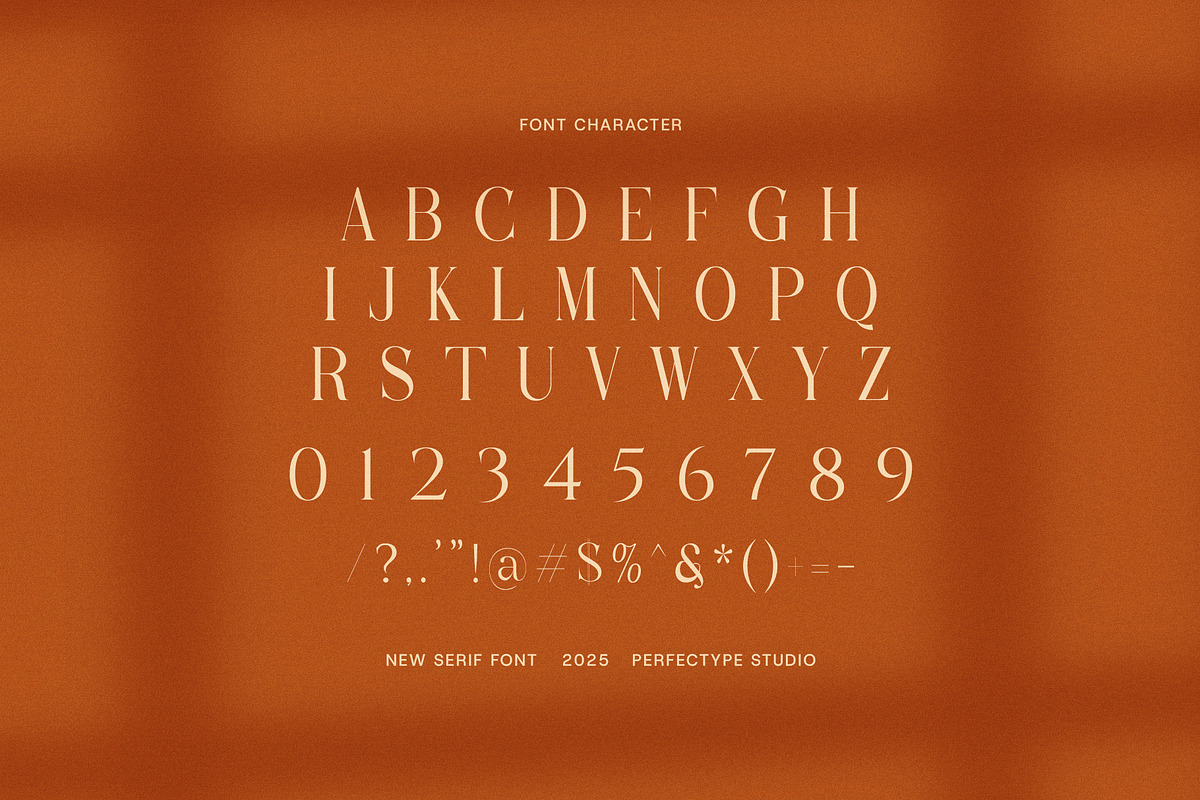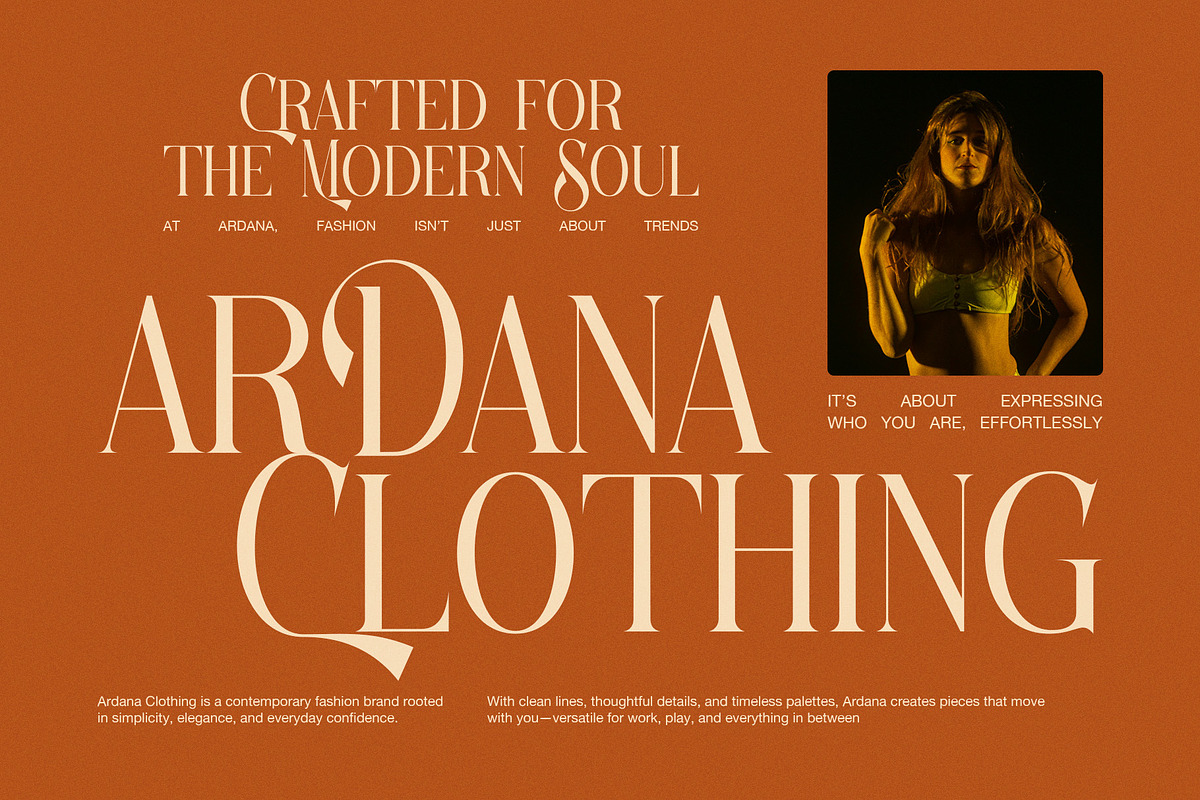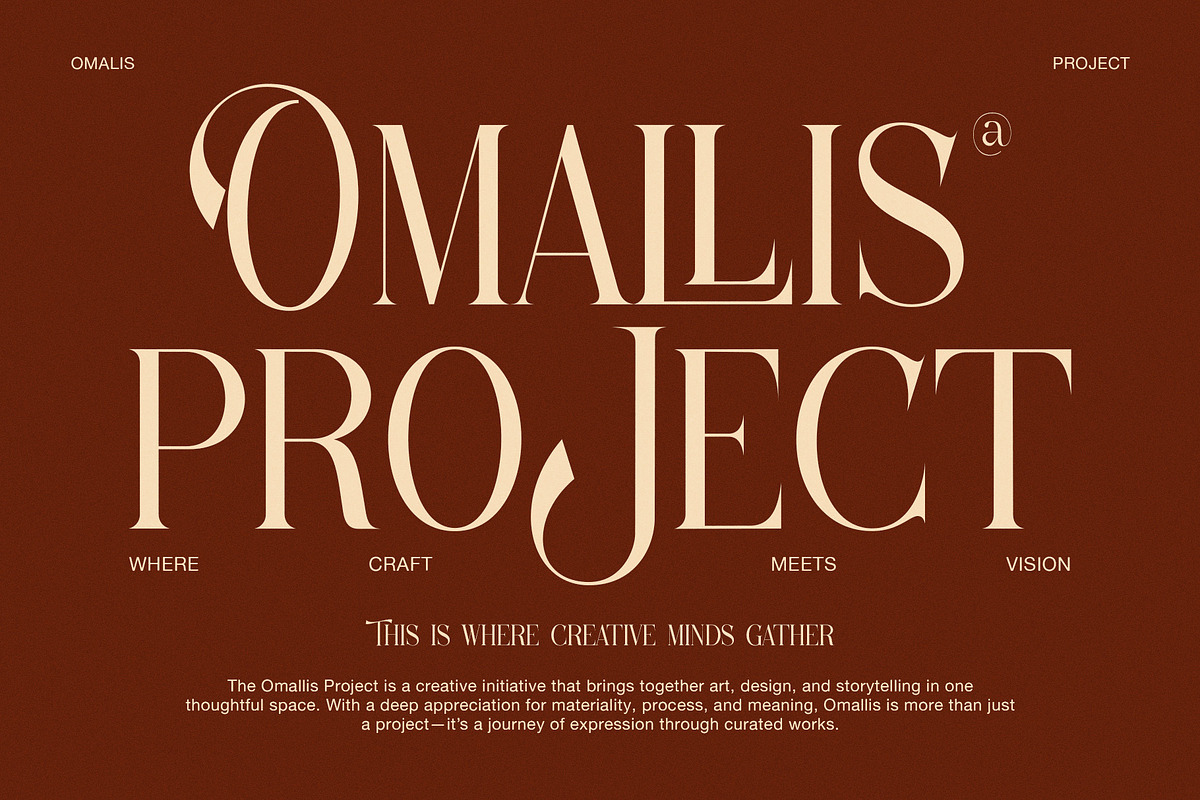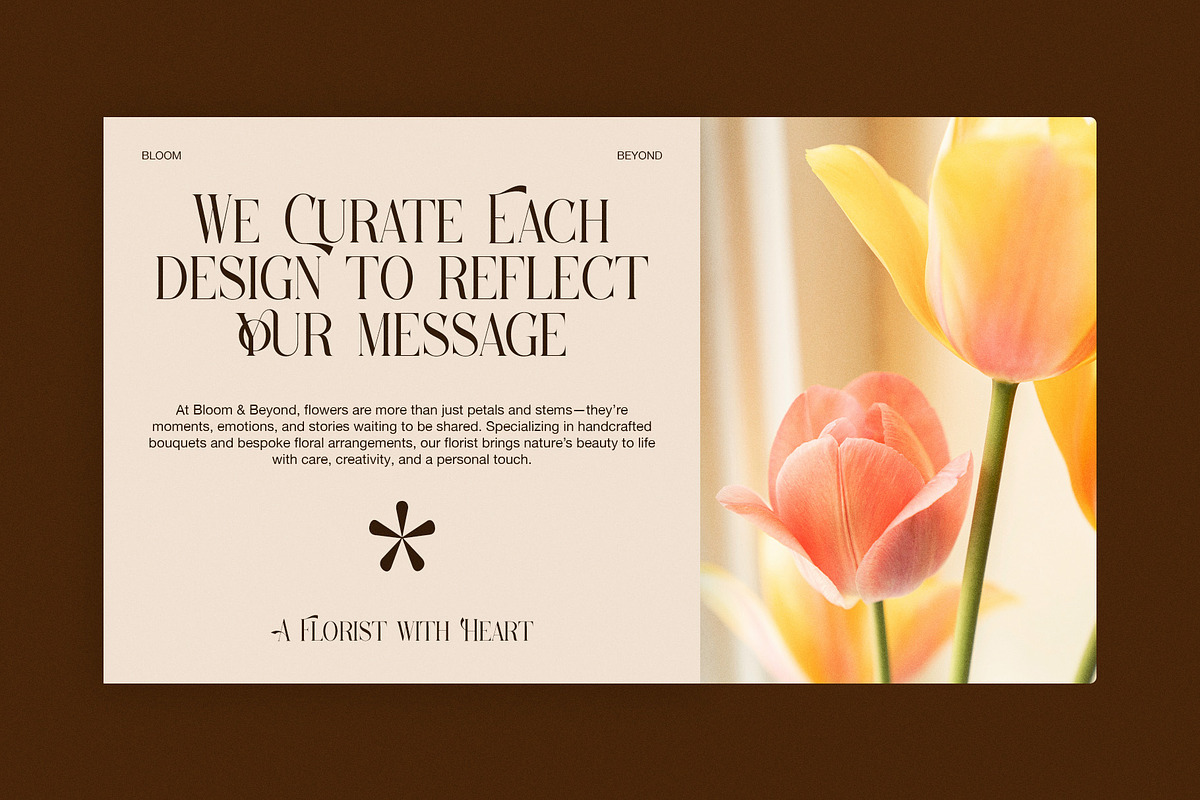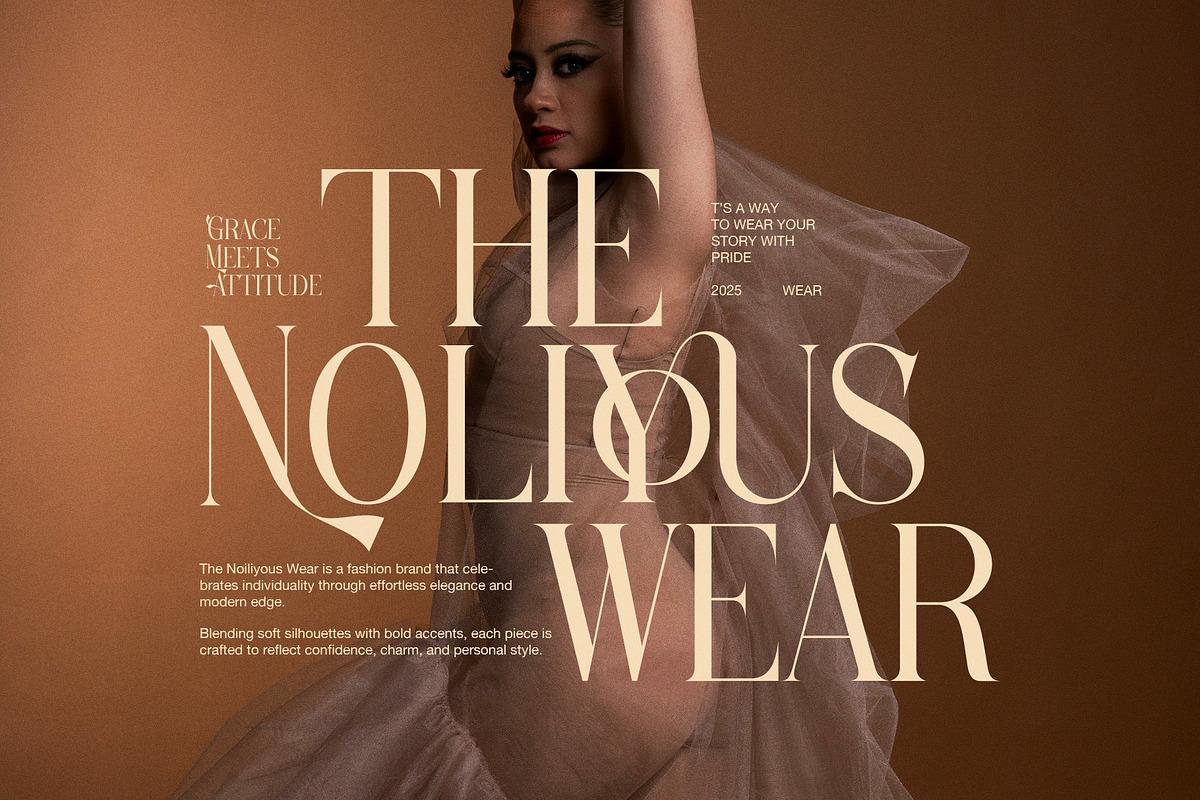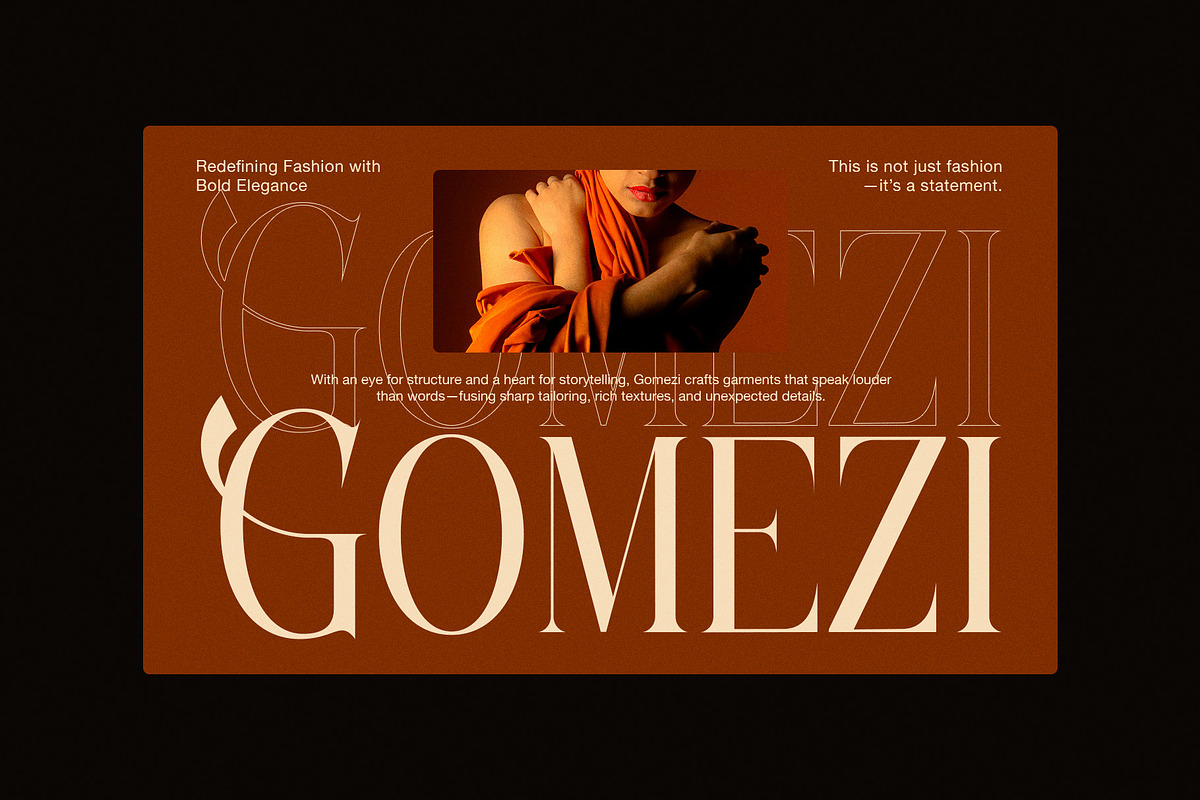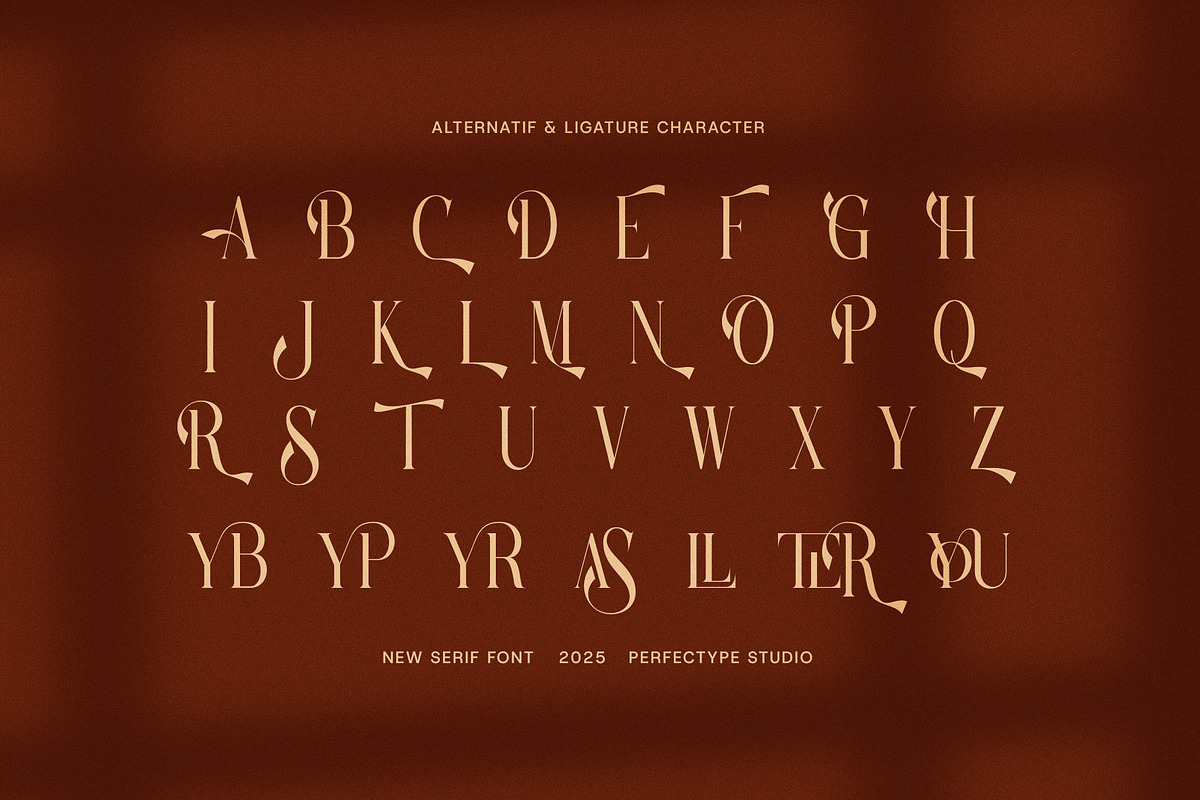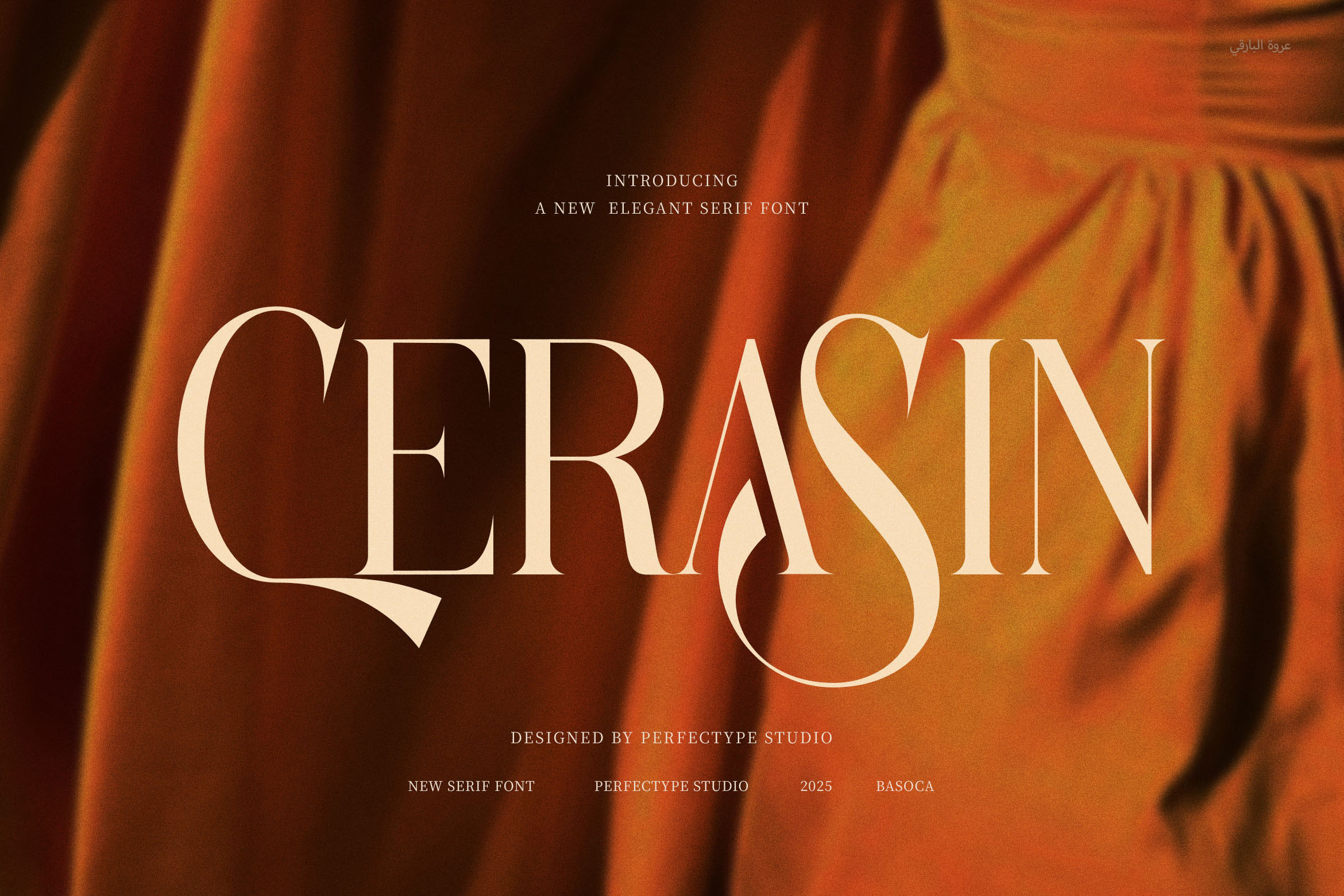
Cerasin Elegant Serif Font
🌟 Cerasin Elegant Serif Font – Modern Sophistication for Bold Brands
Cerasin Elegant Serif Font is a refined, modern serif typeface crafted for professionals who value timeless elegance. Designed with high-end aesthetics in mind, this font brings sophistication and clarity to any branding or creative project.
Whether you're designing a luxury logo, developing stylish packaging, or building a modern website, Cerasin delivers visual impact. Its proportional shapes and carefully designed ligatures add a smooth flow and professional finish to text. As a result, your design feels both contemporary and classic.
Cerasin isn’t just visually stunning—it’s also highly versatile. From boutique brands to premium magazines, high-end food labels to exclusive fashion campaigns, this typeface adapts beautifully. Use it across headlines, product labels, editorial layouts, advertisements, and digital platforms for a bold and cohesive identity.
✨ Why Choose Cerasin?
Elegant and timeless serif design
Stylish ligatures that enhance readability
Perfect for logos, packaging, websites, and branding
High compatibility with modern layouts
Excellent readability across digital and print formats
Take your brand to the next level with Cerasin—where form meets function in flawless harmony.